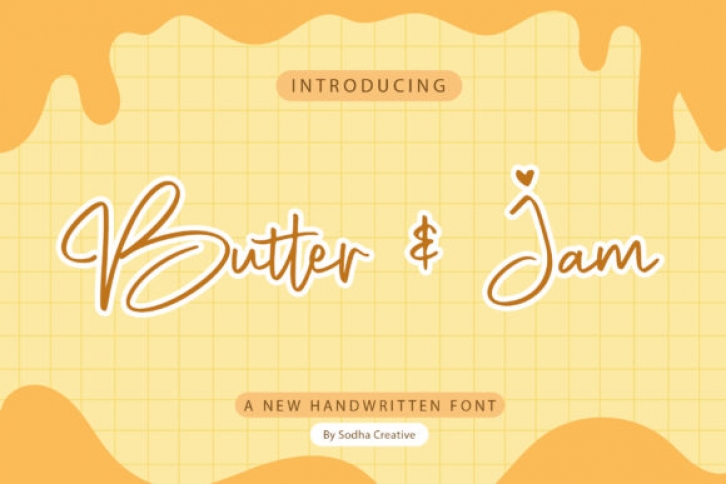
Butter & Jam is a sweet and cursive handwritten font. This gentle font will look gorgeous on a variety of design ideas. It will add a joyful and romantic touch to each of your projects!